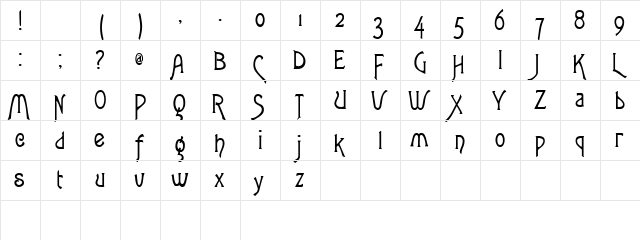
LoveLetters Regular
Design Context for LoveLetters Typeface
LoveLetters is a composed and adaptable typeface that performs quietly and consistently across a wide range of design contexts.